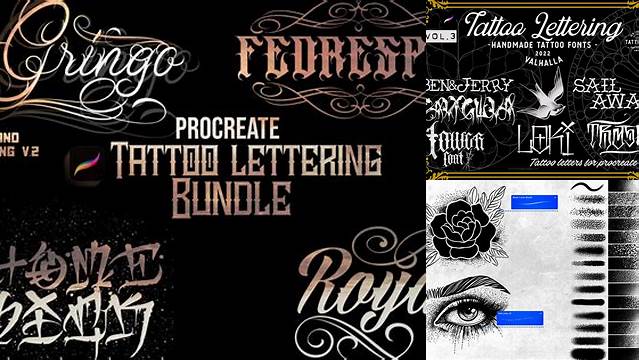
Procreate Tattoo Fonts & Brushes: The Ultimate Guide
Procreate tattoo fonts brushes are revolutionizing the way tattoo artists design and create their artwork. Gone are the days of painstakingly drawing each letter by hand; now, artists can leverage the power of digital tools to streamline their process and unlock new levels of creativity. Whether you're a seasoned tattoo professional or just starting out, understanding and utilizing Procreate's font and brush capabilities can significantly enhance your workflow and the quality of your designs.
Understanding Procreate for Tattoo Design
Procreate has become an indispensable tool for tattoo artists due to its versatility and user-friendly interface. The app allows artists to create detailed designs, experiment with different styles, and make quick adjustments without the permanence of traditional methods. The ability to import and use custom brushes and fonts further extends Procreate's functionality, making it a central hub for digital tattoo design. With features like layering, color adjustments, and perspective guides, Procreate empowers artists to bring their visions to life with precision and efficiency. The flexibility of Procreate also enables artists to easily share their designs with clients for feedback and approvals, streamlining the collaborative process and ensuring client satisfaction. Furthermore, the undo/redo functionality provides a safety net, allowing artists to explore creative boundaries without the fear of irreversible mistakes. Integrating Procreate into the tattoo design workflow not only saves time but also opens up new avenues for artistic expression and innovation.
Finding the Right Fonts for Tattoo Designs
Selecting the right tattoo fonts is crucial for conveying the desired message and aesthetic of a tattoo. The font should not only be visually appealing but also legible and appropriate for the design's overall theme. Online resources like DaFont, Creative Market, and FontSpace offer a vast library of fonts suitable for tattoo designs. These platforms allow you to filter fonts by style (e.g., script, gothic, sans-serif) and license type, ensuring you find fonts that meet your specific needs and usage rights. When choosing a font, consider the size and placement of the tattoo. Intricate fonts may look stunning on a large canvas but might lose their clarity when scaled down for smaller tattoos. It's also essential to consider the font's readability, especially for text-heavy designs. A font that looks artistic but is difficult to read can detract from the tattoo's overall impact. Previewing the font with the intended text in Procreate is a great way to assess its suitability before committing to the final design. Additionally, think about the font's personality – does it align with the client's style and the tattoo's subject matter? A playful font might be perfect for a whimsical design, while a bold, traditional font might be more appropriate for a classic tattoo.
Top Font Styles for Tattoos
When diving into tattoo font styles, it's a good idea to familiarize yourself with the classics and how they might resonate with your client's vision. Script fonts, with their elegant and flowing lines, add a touch of sophistication and are ideal for names, quotes, or meaningful phrases. Gothic fonts, characterized by their bold and intricate letterforms, evoke a sense of tradition and strength, making them a popular choice for classic tattoo designs. Sans-serif fonts, known for their clean and modern look, provide excellent readability and are well-suited for minimalist tattoos or designs with a contemporary feel. Blackletter fonts, inspired by medieval calligraphy, bring a historical and ornamental flair to tattoos, often used in traditional and old-school designs. Cursive fonts, similar to script fonts, offer a personal and handwritten touch, perfect for intimate messages or signatures. Each style carries its unique personality, and understanding their nuances will help you guide your clients in selecting the perfect font that complements their individual stories and artistic preferences. By exploring these different styles and considering their visual impact, you can create tattoo designs that are not only aesthetically pleasing but also deeply meaningful.
Creating Custom Lettering with Procreate Brushes
Crafting custom lettering with Procreate brushes offers unparalleled creative control, allowing you to design unique and personalized tattoo designs that stand out. Start by sketching out your desired text or phrase, focusing on the overall composition and spacing. Next, choose a brush that suits your desired style – whether it's a fine liner for delicate scripts or a bold shader for impactful lettering. Experiment with different brush settings such as size, pressure sensitivity, and streamline to achieve the perfect stroke quality. Utilize Procreate's layering system to build up your lettering gradually, adding depth and dimension. Don't be afraid to play with textures and effects to give your lettering a unique and artistic touch. Consider using textured brushes to mimic the look of traditional ink or adding subtle gradients for a modern feel. Practice is key to mastering custom lettering, so dedicate time to experimenting with different techniques and refining your skills. You can also find inspiration from traditional calligraphy and hand-lettering styles to inform your designs. With practice and dedication, you'll be able to create custom lettering that perfectly captures your artistic vision and elevates your tattoo designs.
Essential Procreate Brushes for Tattoo Artists
Having the right set of Procreate brushes is essential for any tattoo artist looking to create professional-quality designs. A versatile liner brush is a must-have for creating crisp, clean lines and intricate details. Shader brushes, with their soft edges and varying opacities, are perfect for adding depth and dimension to your designs. Texture brushes can be used to create realistic skin textures or add unique artistic effects. Stipple brushes are ideal for creating dotwork shading and adding a tactile feel to your designs. For lettering, specialized lettering brushes can help you create consistent and professional-looking text. Experimenting with different brush settings such as size, pressure sensitivity, and streamline can further customize your brushes to suit your individual style and preferences. Online resources like Creative Market and Etsy offer a wide variety of Procreate brush packs specifically designed for tattoo artists. These packs often include a curated selection of essential brushes that can streamline your workflow and enhance your designs. Investing in high-quality brush sets can significantly improve the quality and efficiency of your digital tattoo artwork.
Optimizing Your Workflow with Procreate
To optimize your workflow with Procreate, start by customizing your interface to suit your individual needs and preferences. Arrange your frequently used tools and brushes for easy access, and create custom gestures for common actions. Utilizing Procreate's layering system is crucial for organizing your designs and making non-destructive edits. Group related elements into folders and label your layers clearly to maintain a clean and efficient workspace. Experiment with Procreate's QuickShape feature to create perfect shapes and lines with ease. This tool can save you time and effort when creating symmetrical designs or geometric patterns. Take advantage of Procreate's Time-lapse Recording feature to capture your creative process and share it with your followers on social media. This can be a great way to showcase your skills and attract new clients. Use Procreate's Reference Companion feature to keep reference images visible while you work. This can be particularly helpful when working on complex designs or portraits. Regularly backing up your Procreate files to iCloud or an external storage device is essential to prevent data loss. By implementing these tips and tricks, you can streamline your workflow, increase your productivity, and create stunning tattoo designs with Procreate.
Tips for Creating Tattoo-Ready Designs in Procreate
When creating tattoo-ready designs in Procreate, it's important to keep in mind the limitations and requirements of the tattooing process. Design with scalability in mind, ensuring that your design will look good at both small and large sizes. Avoid overly intricate details that may not translate well onto skin. Consider the placement of the tattoo on the body and design accordingly. Wrap your design around the contours of the body to create a natural and flowing composition. Use bold lines and clear shading to create a design that will stand the test of time. Fading and blurring can occur over time, so it's important to create a design that will still look good as it ages. Consult with experienced tattoo artists to get feedback on your designs and learn about best practices for creating tattoo-ready artwork. They can provide valuable insights into what works well and what doesn't. Before starting a tattoo, always create a stencil of your design and test it on the client's skin to ensure proper placement and fit. By following these tips, you can create tattoo designs in Procreate that are both visually stunning and technically sound.
In conclusion, mastering Procreate tattoo fonts and brushes is a game-changer for tattoo artists. By understanding the capabilities of Procreate, selecting the right fonts, utilizing custom lettering techniques, and optimizing your workflow, you can create stunning and professional-quality tattoo designs that will impress your clients and elevate your artistry. Whether you're a seasoned pro or just starting out, embracing the digital tools available to you can unlock new levels of creativity and efficiency in your tattoo design process. So, dive in, experiment, and let your imagination run wild!